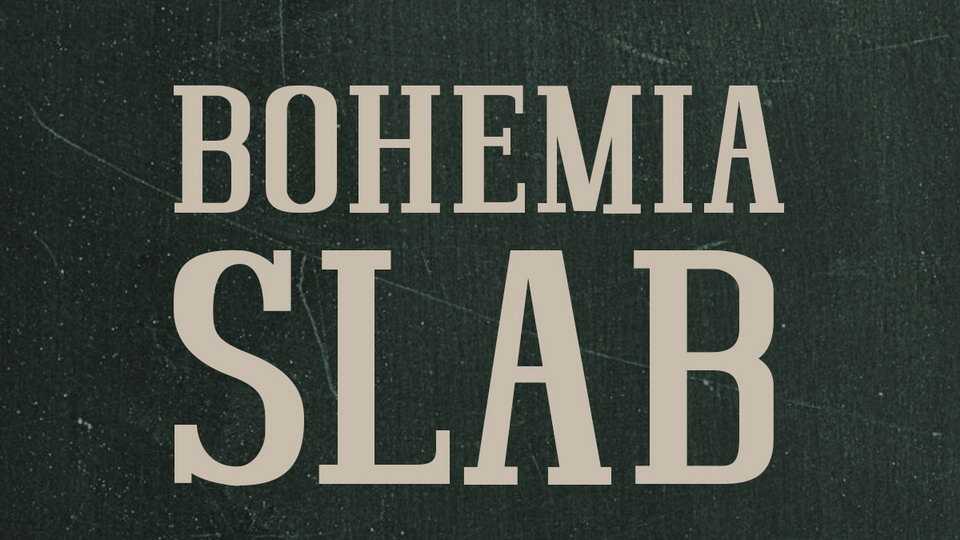
Download Bohemia Slab font, a classy slab serif, created for titling of menu. It’s also great for headlines, branding, packaging, printing and other graphic design projects.